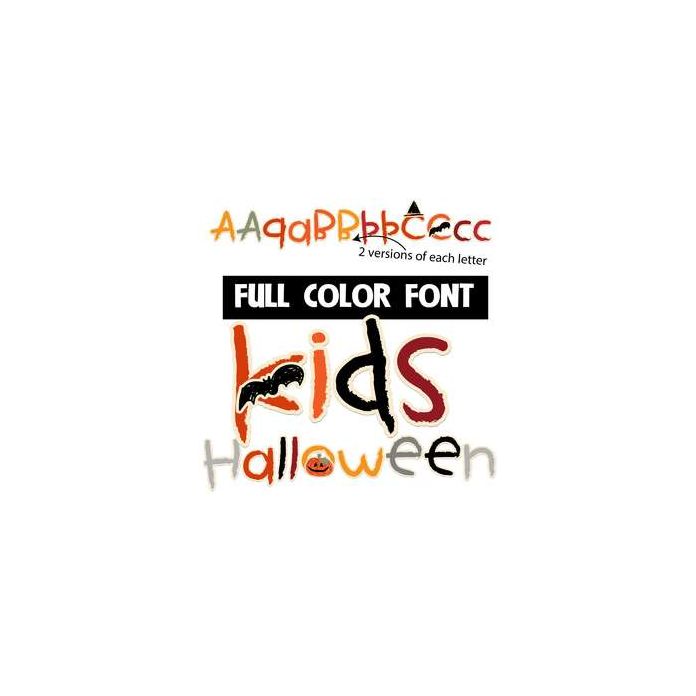
This full-color font features childish letterings with a few doodles for Halloween. This font works best for titles, displays, posters and more. Please note color fonts will show as black in non compatible programs. This font type is compatible with Silhouette Studio.